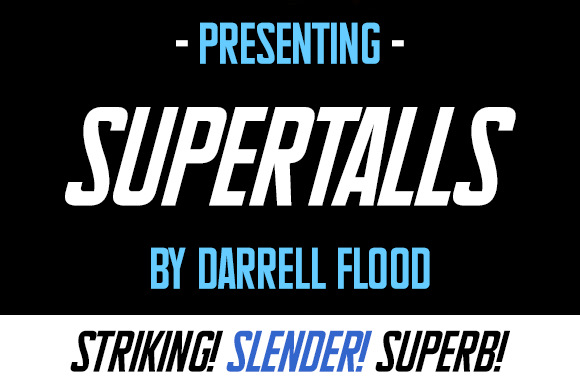
Introducing Supertalls Font, the ultimate Sans Serif typeface that will transform your designs into captivating masterpieces. Created by the renowned Dadiomouse, this striking font family embodies the essence of towering grandeur, with its tall, slender style that commands attention and leaves an unforgettable impression.
Supertalls Font is not just another font; it's an artistic statement that will elevate your creative projects to new heights. Its meticulously crafted glyphs possess a timeless elegance that evokes a sense of sophistication and cinematic allure. Imagine movie posters that leap off the screen, book covers that whisper tales of adventure, and magazine headlines that ignite imaginations.
With Supertalls Font, the possibilities are endless. Its versatility extends far beyond the realm of cinematic designs; it's a font that effortlessly adapts to any purpose, from sleek logos to eye-catching social media graphics. Its tall, slender structure adds a touch of graceful sophistication to any text, making it perfect for invitations, branding materials, and even elegant wedding stationery.